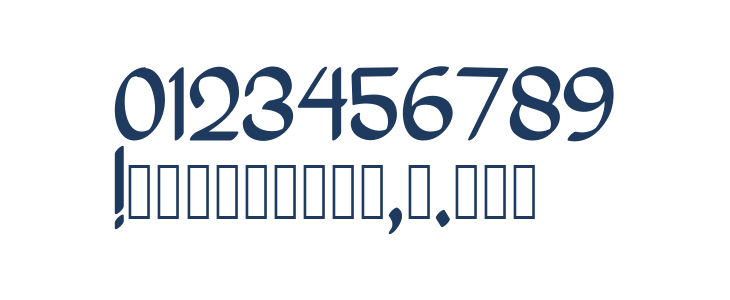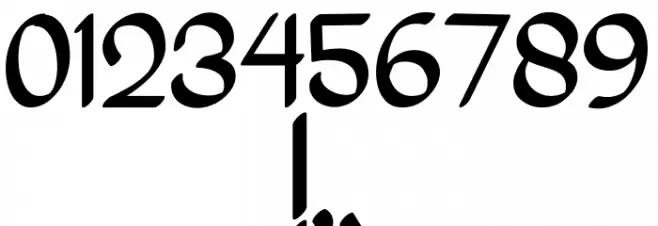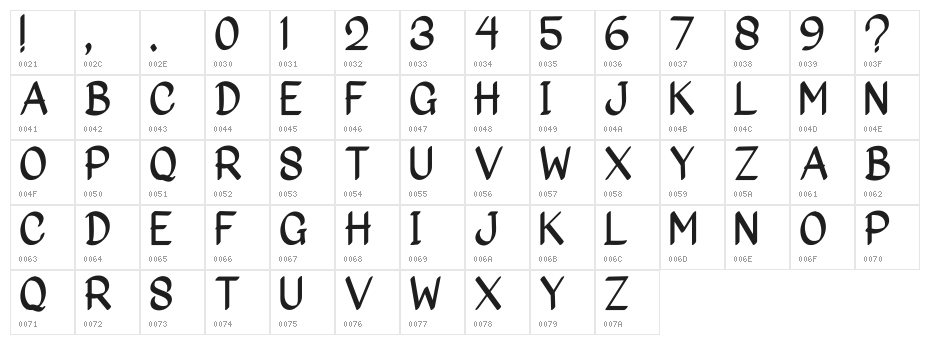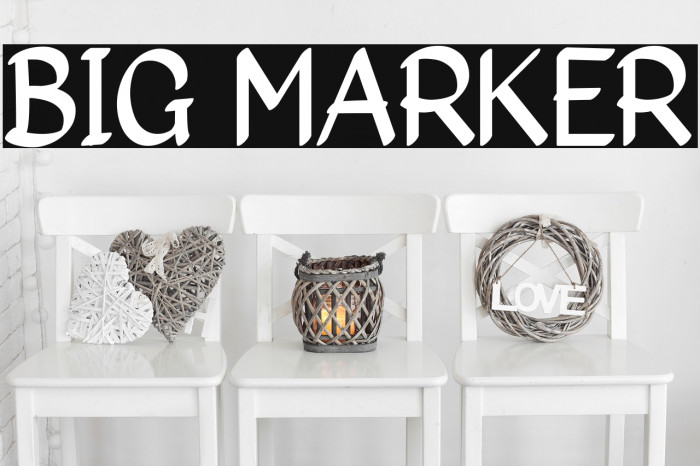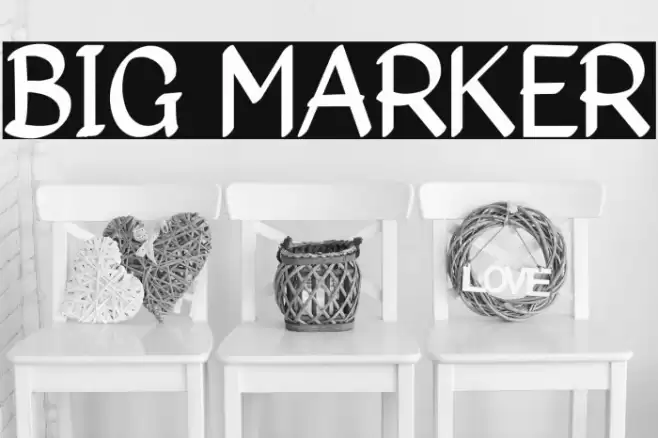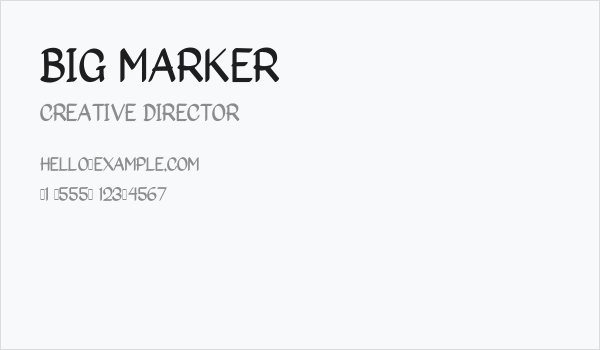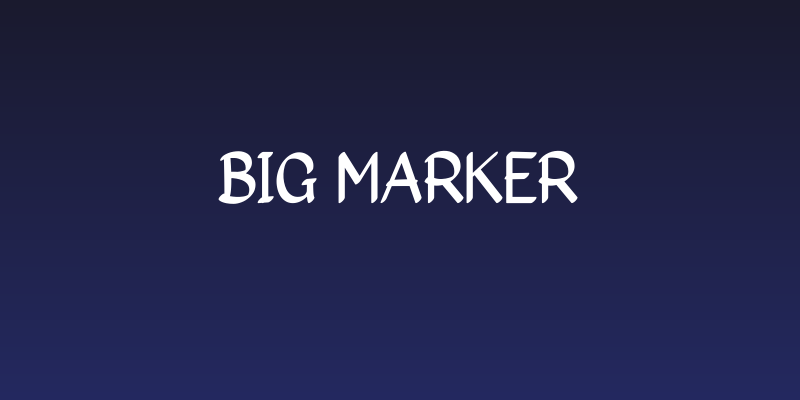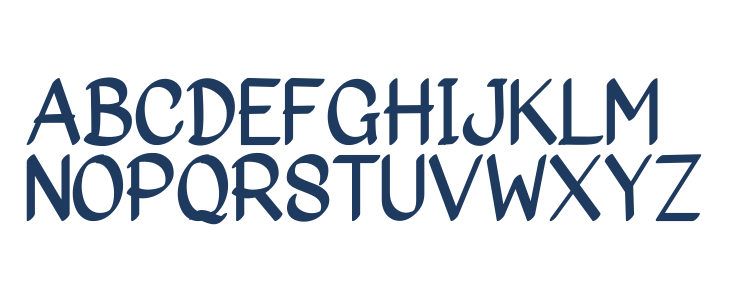
Big Marker Font
Big Marker Description
This font features a bold and dynamic style with a handwritten appearance, characterized by its thick strokes and slight slant. The uppercase letters are prominent and slightly condensed, giving a sense of urgency and energy. The lowercase letters maintain the same boldness, with a playful and informal touch. Numbers are equally bold, ensuring readability and consistency across different uses. The special characters are designed to match the overall style, making them suitable for various creative applications. This font is ideal for projects that require a personal and impactful touch.
Proposed ProjectsIdeal for posters, branding, social media graphics, and creative headlines.